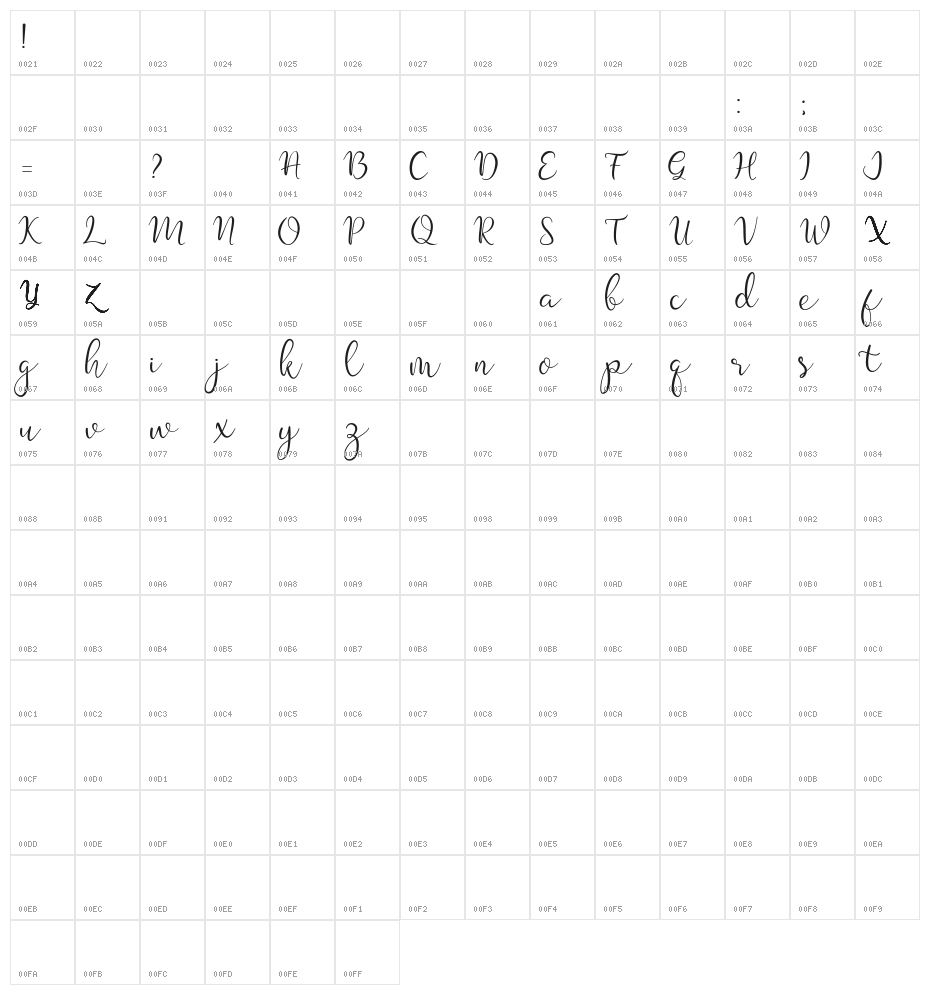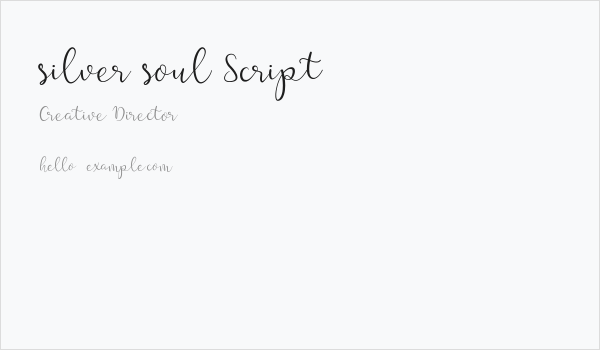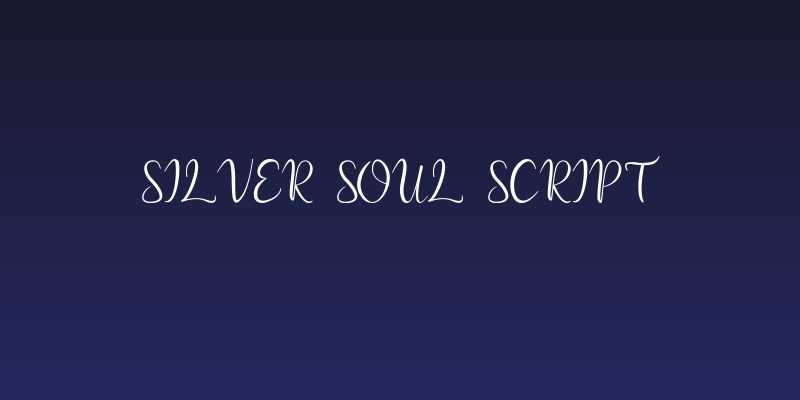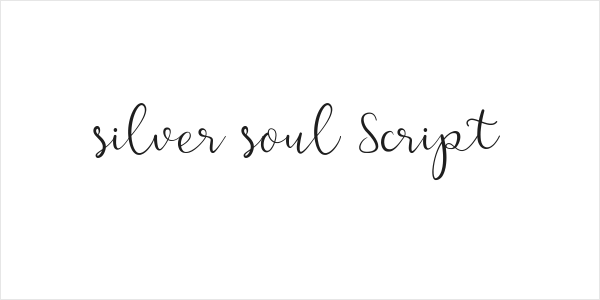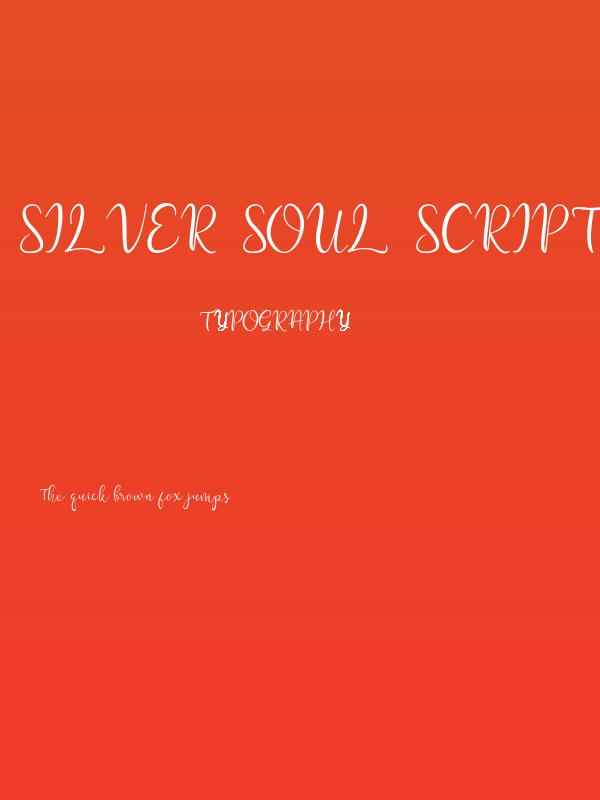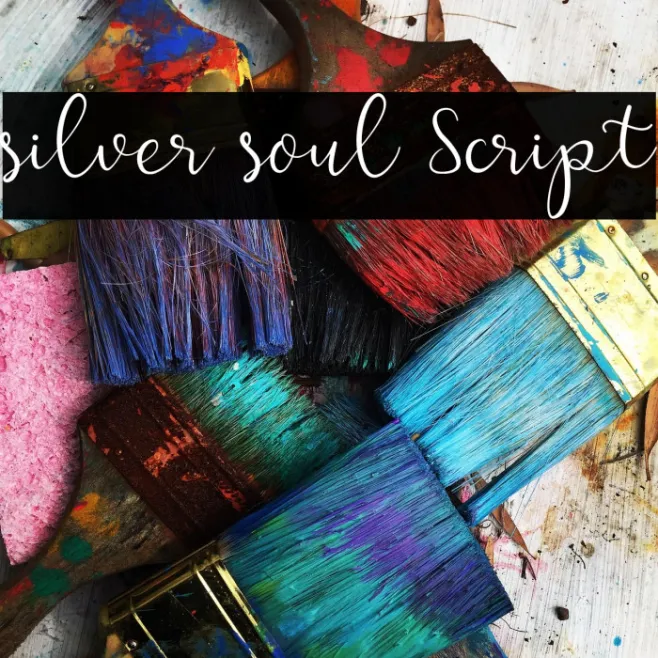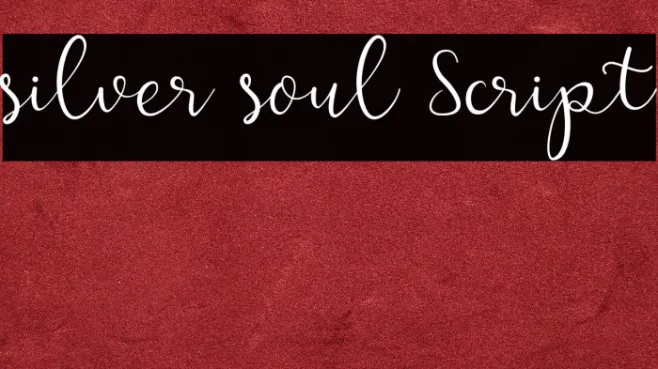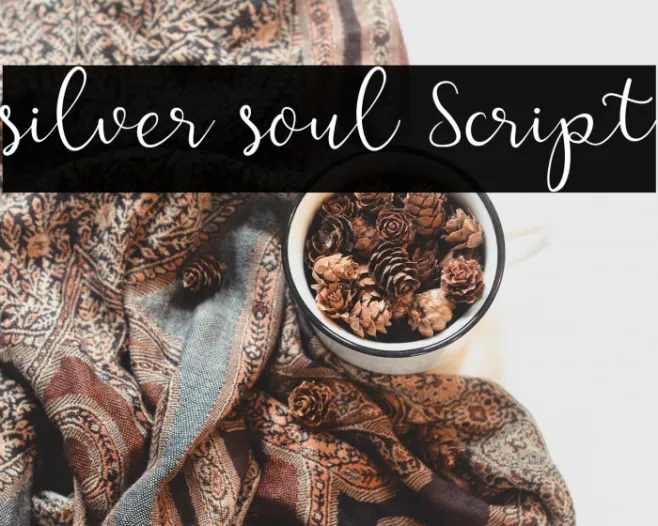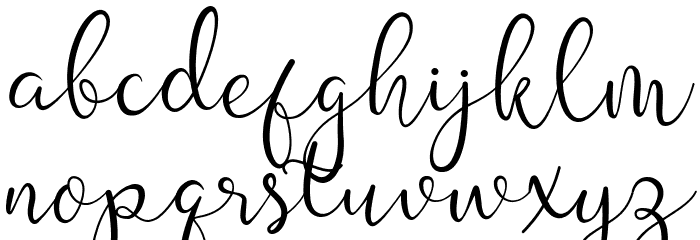
silver soul Script Font
silver soul Script Description
This elegant script font features a flowing, cursive style with smooth, connected strokes. The uppercase letters are gracefully elongated, adding a sense of sophistication and fluidity. The lowercase letters maintain a consistent rhythm, with gentle curves and loops that enhance readability. The font's overall appearance is both classic and modern, making it versatile for various design needs. The lack of special characters and numerals suggests a focus on alphabetic text, ideal for decorative purposes.
| Proposed Projects | Ideal for wedding invitations, greeting cards, branding projects, and elegant logo designs. |